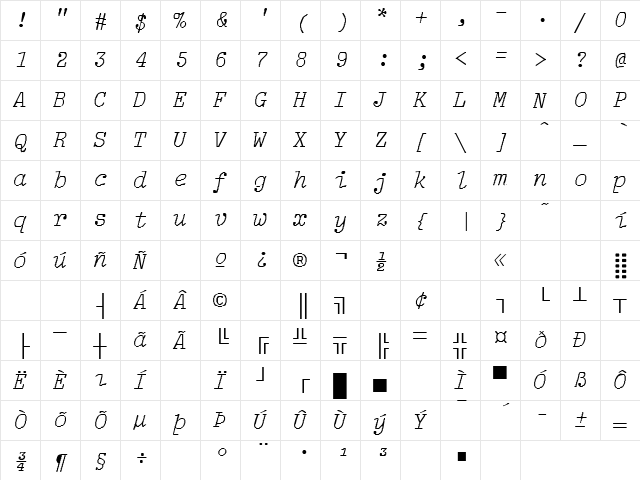
Mines 1 Regular
Mines 1 offers clean, dependable letterforms without strong stylistic allegiance, making it a practical choice for designers who need flexibility.